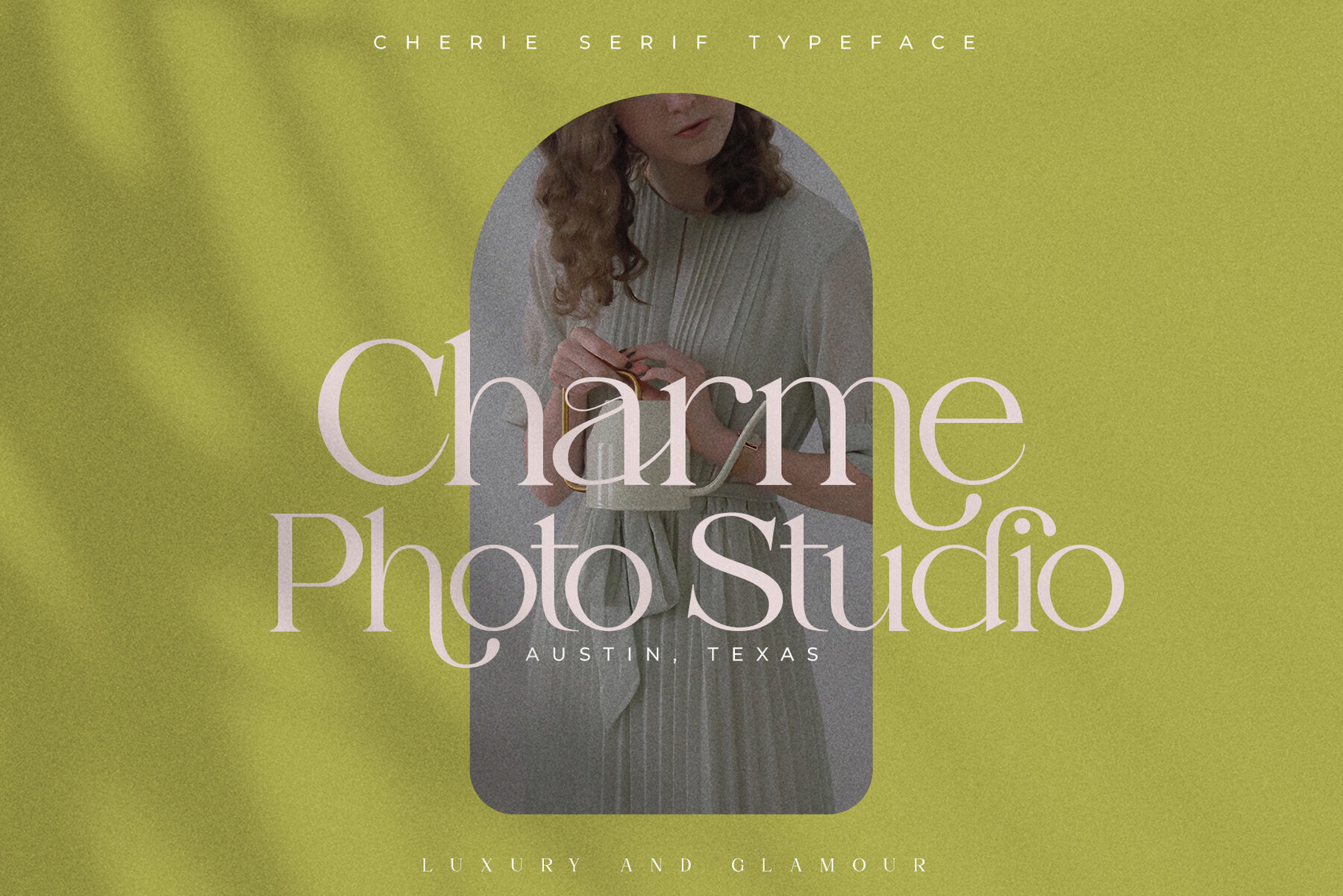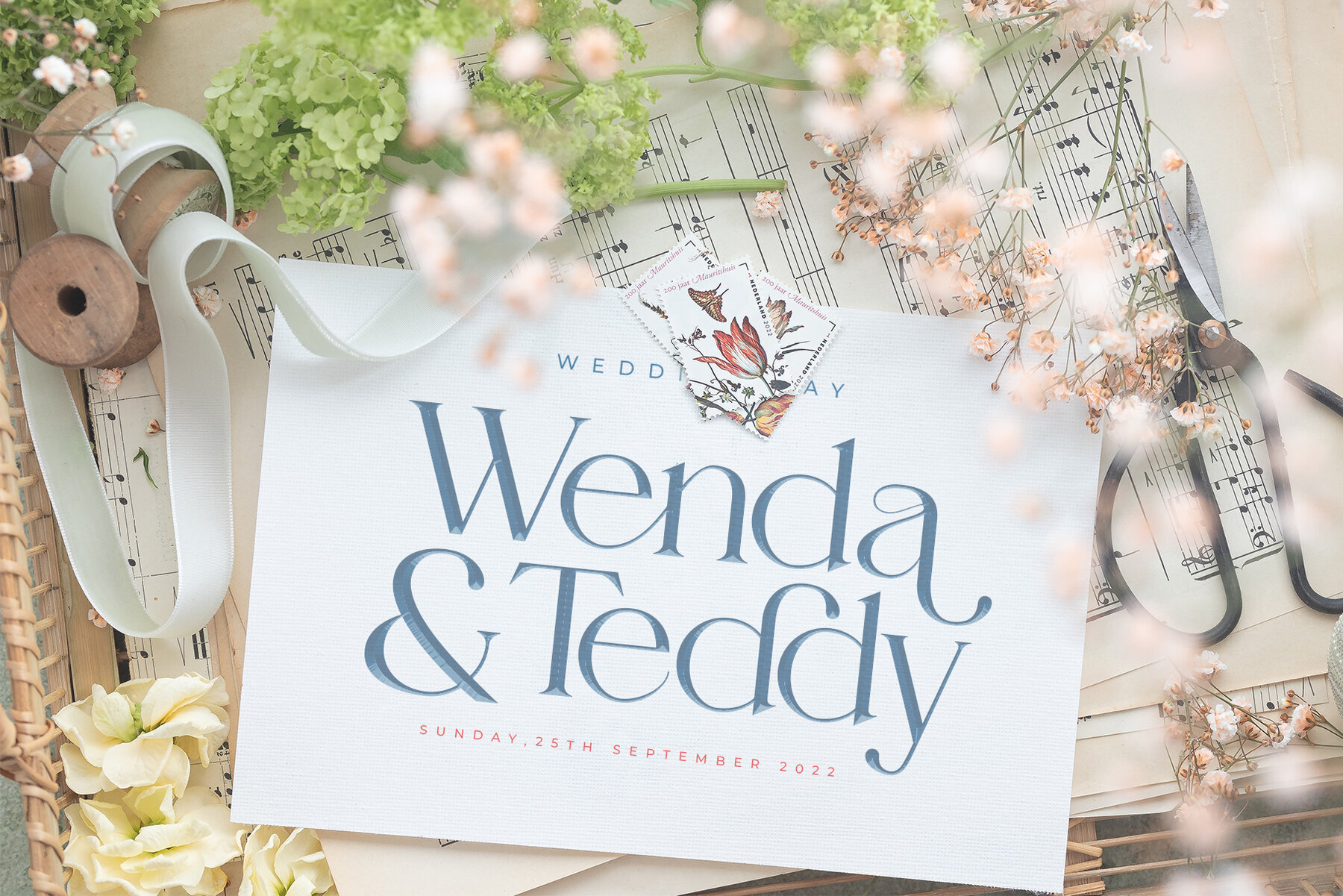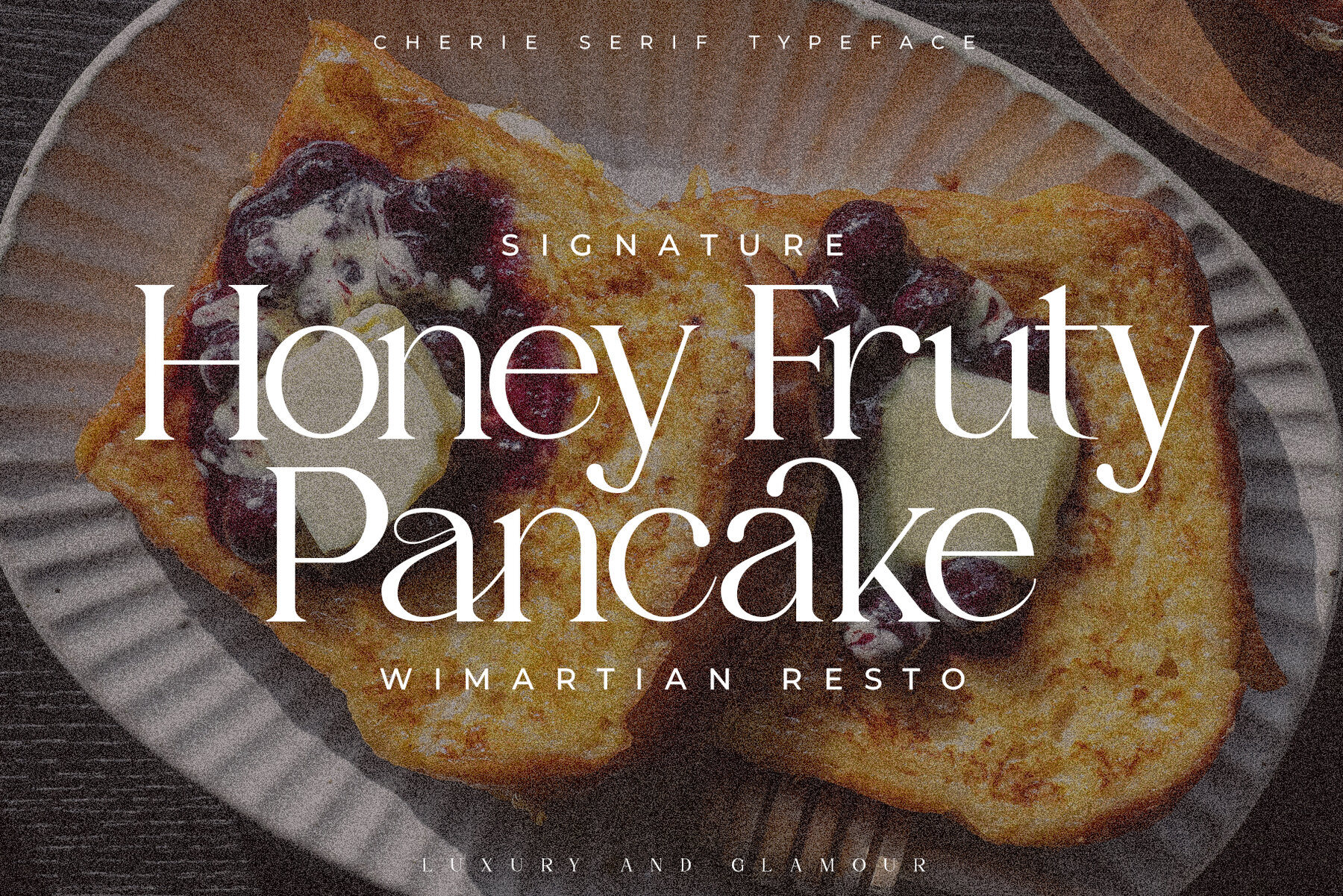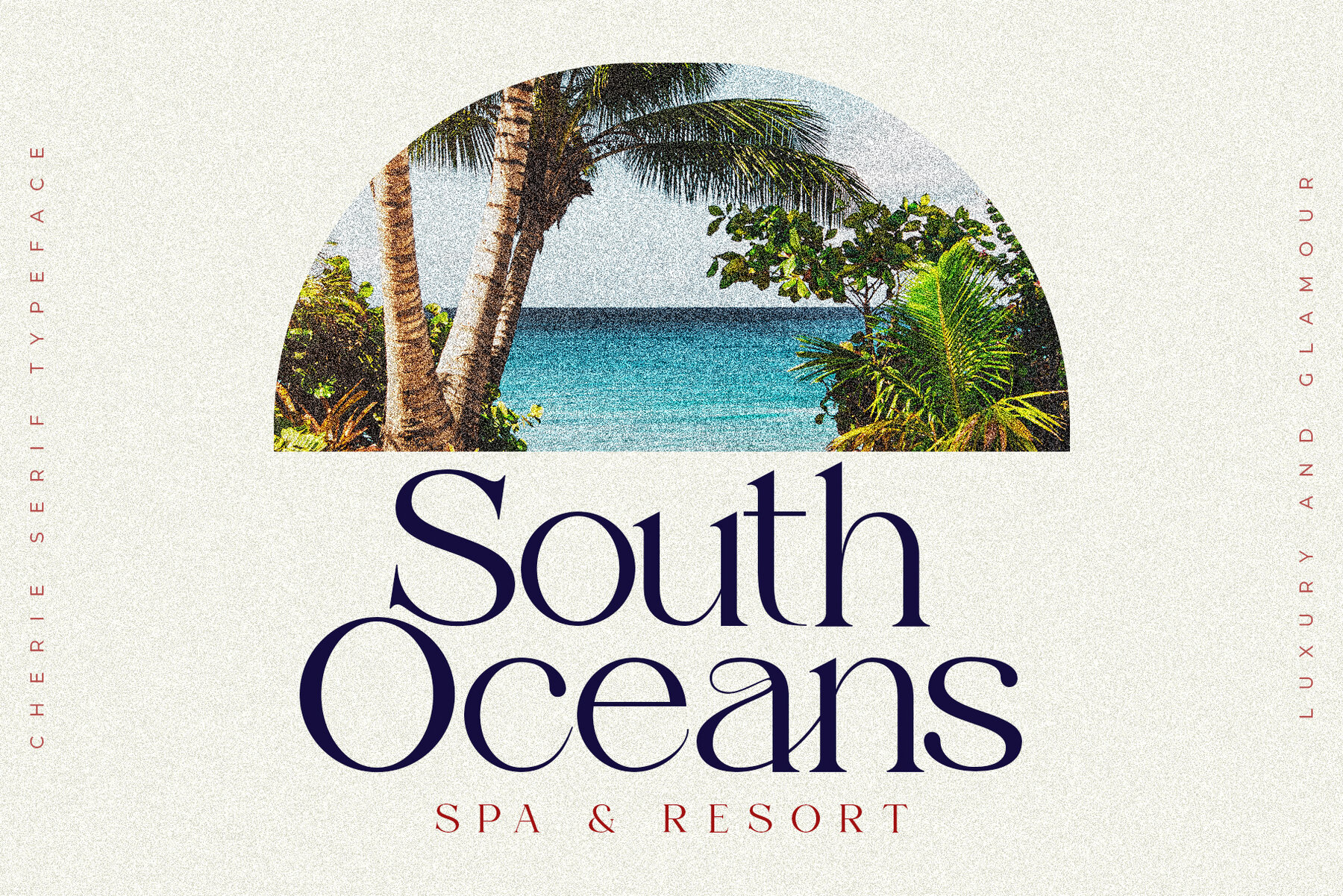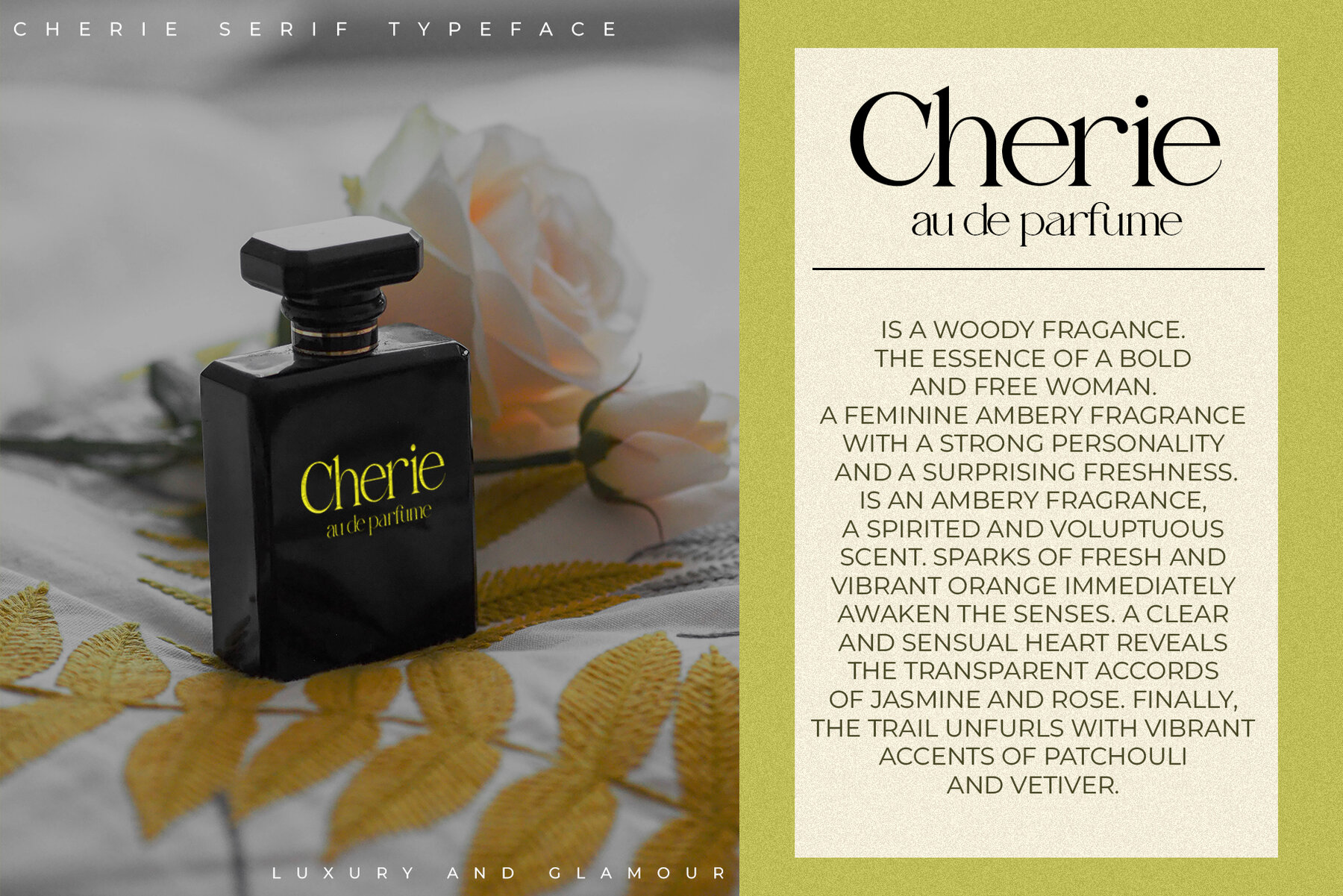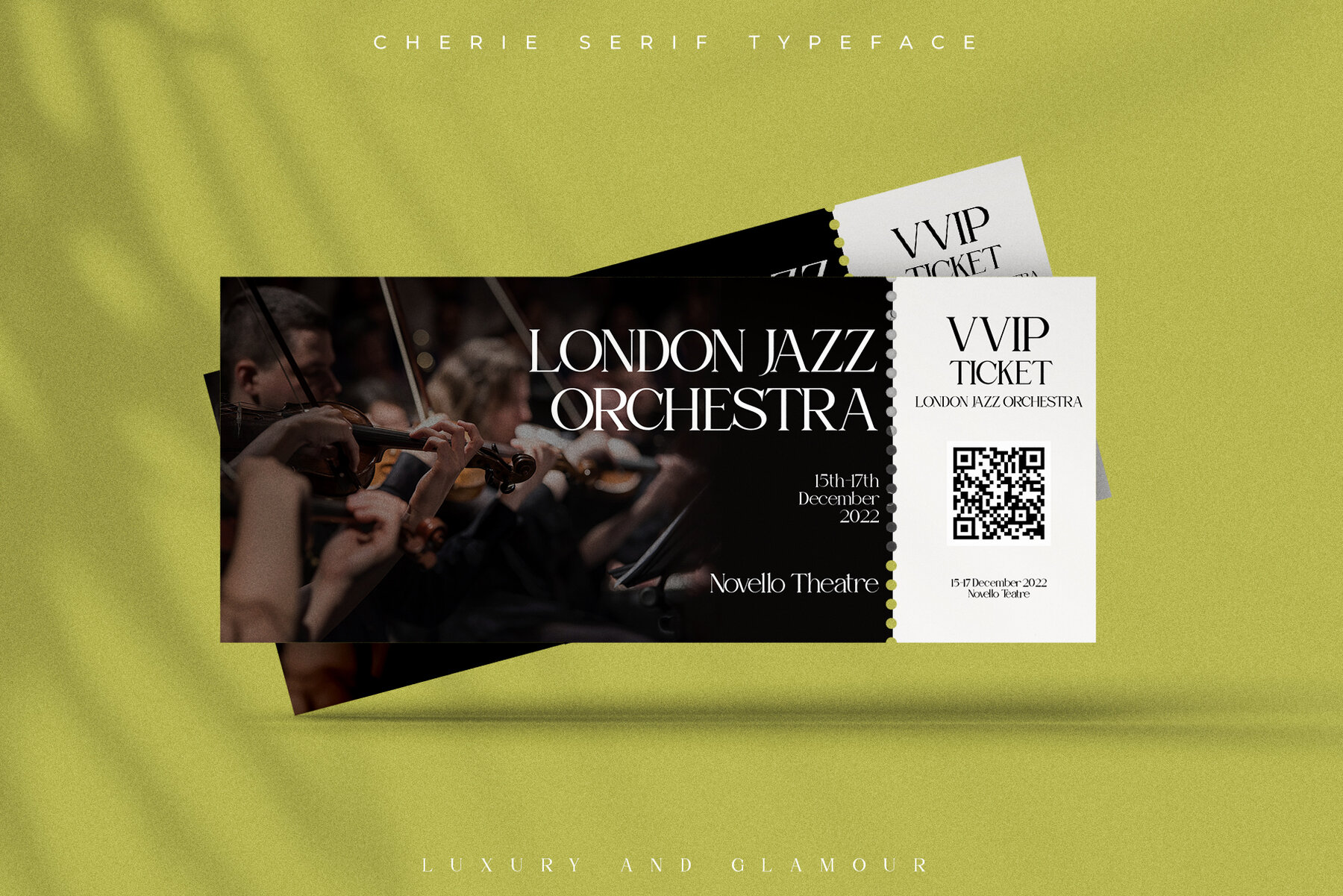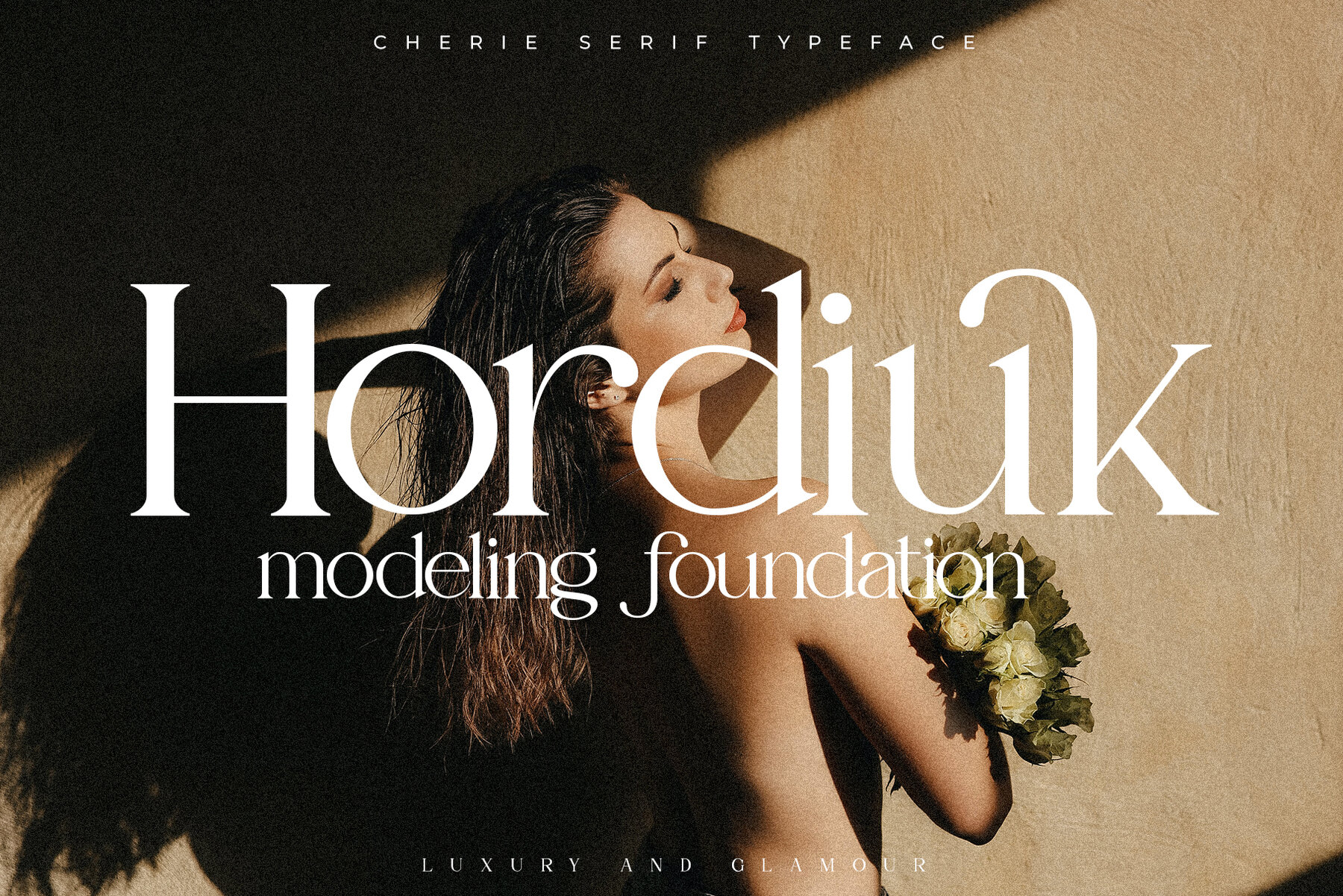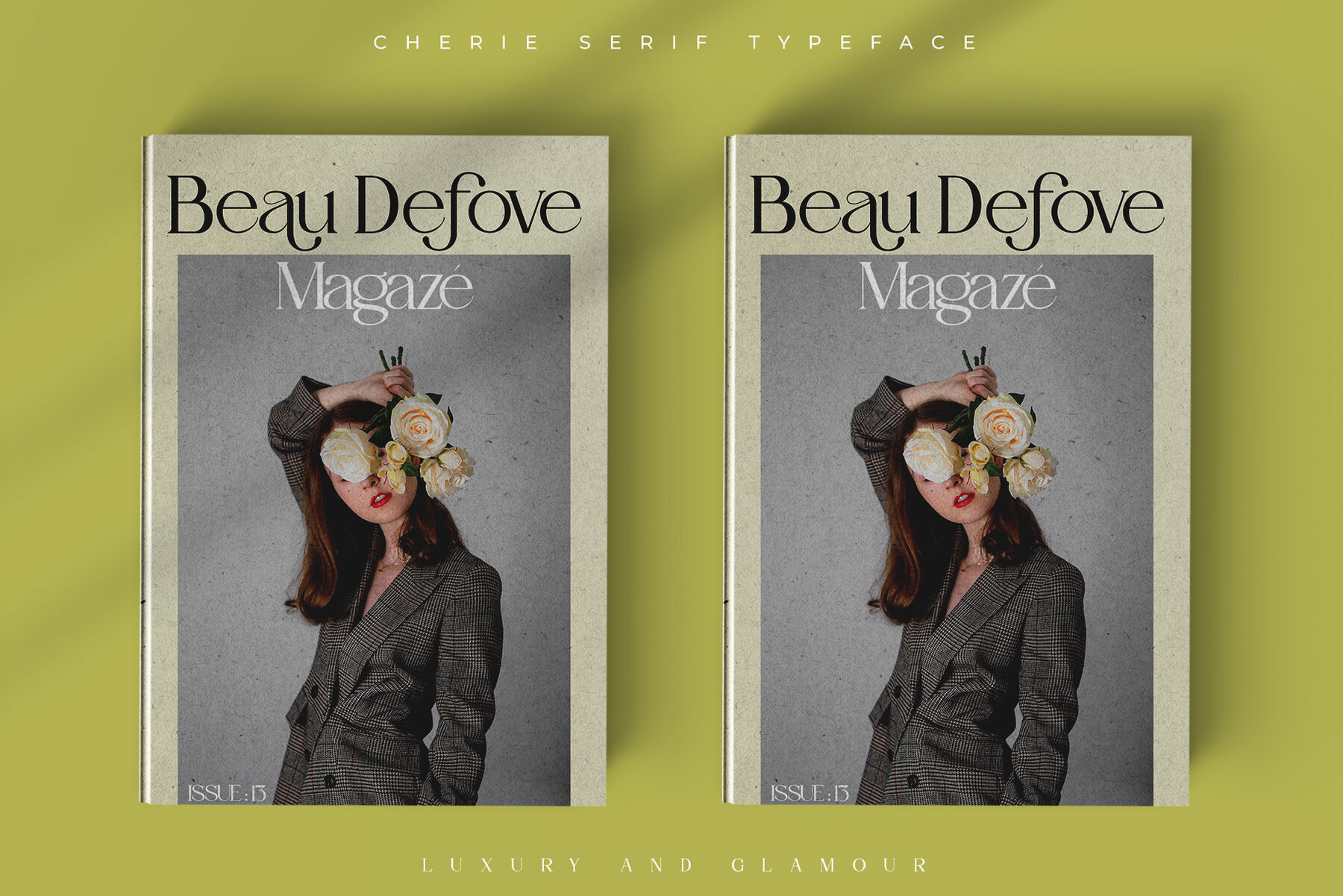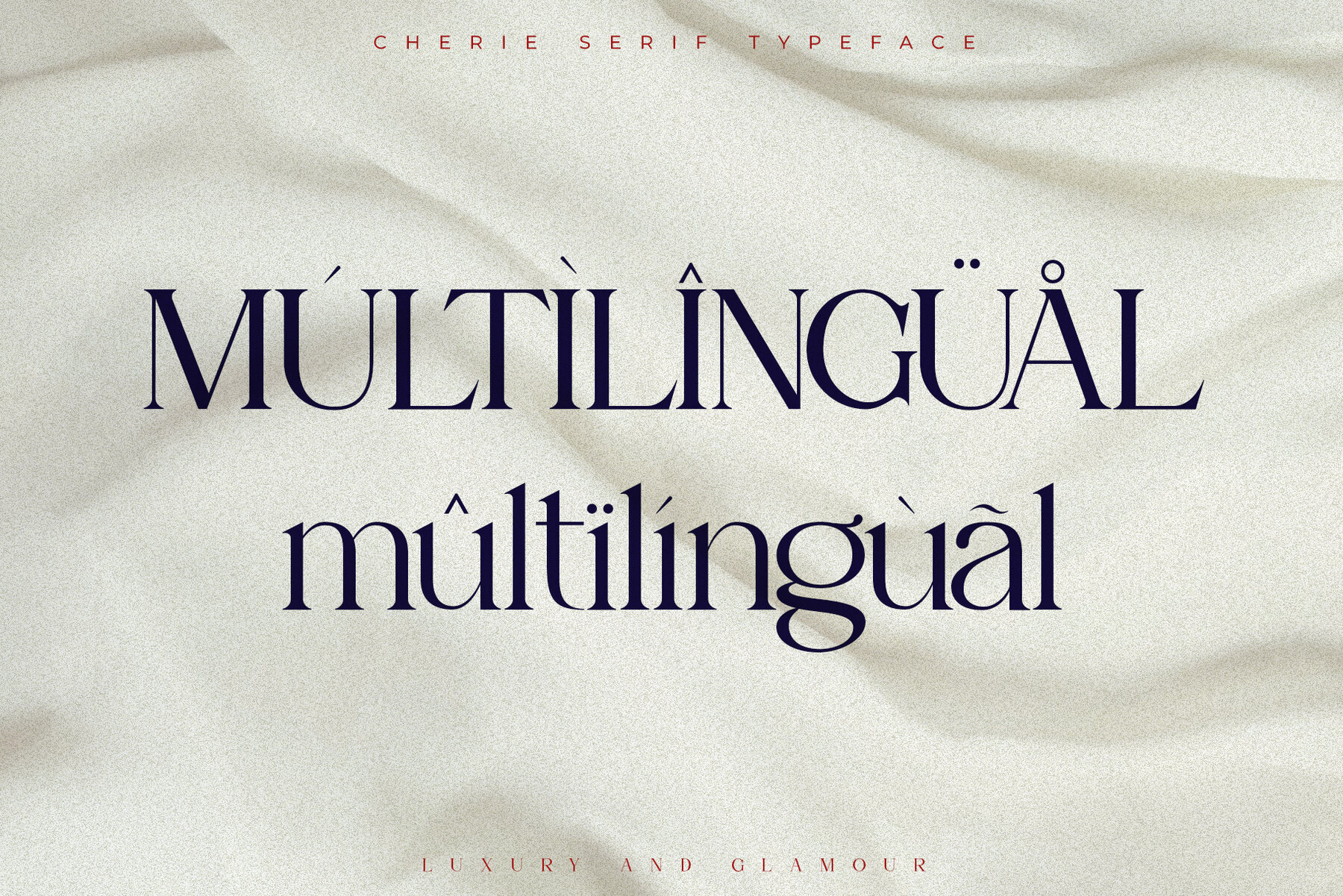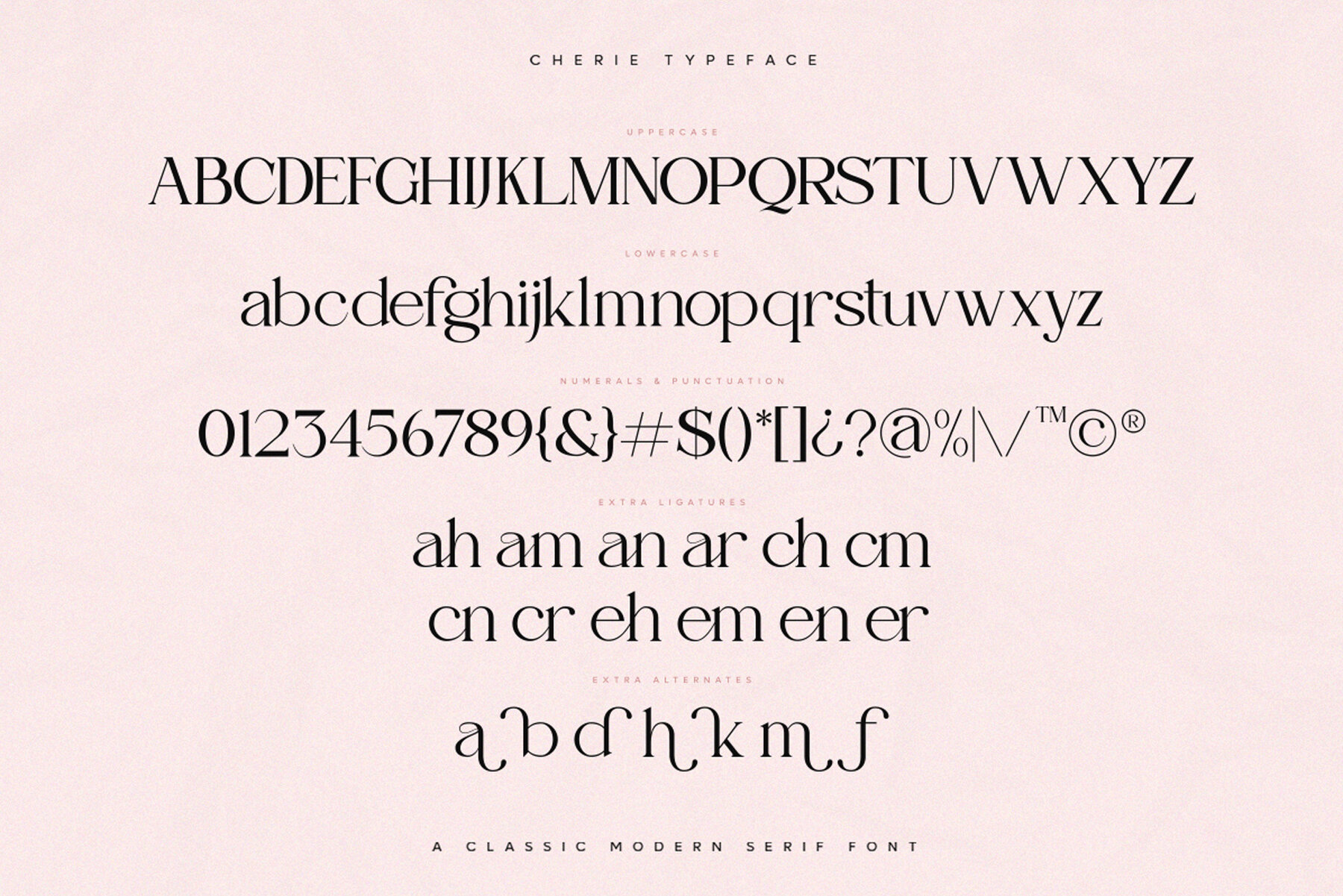
Cherie Classic Font
Cherie Regular
Cherie Oblique
Discover Cherie Classic, a serif font that artfully blends traditional design elements with modern flair. Inspired by the elegance of ligature characters, this font brings a refined touch to any project, making it ideal for designers seeking a sophisticated aesthetic. The Cherie Classic font package provides both regular and oblique styles, ensuring versatility in application. Although designed for simple integration, be mindful of licensing restrictions, including limitations on usage in broadcast media and resale.Cherie Classic: A Serif Font with Modern Elegance